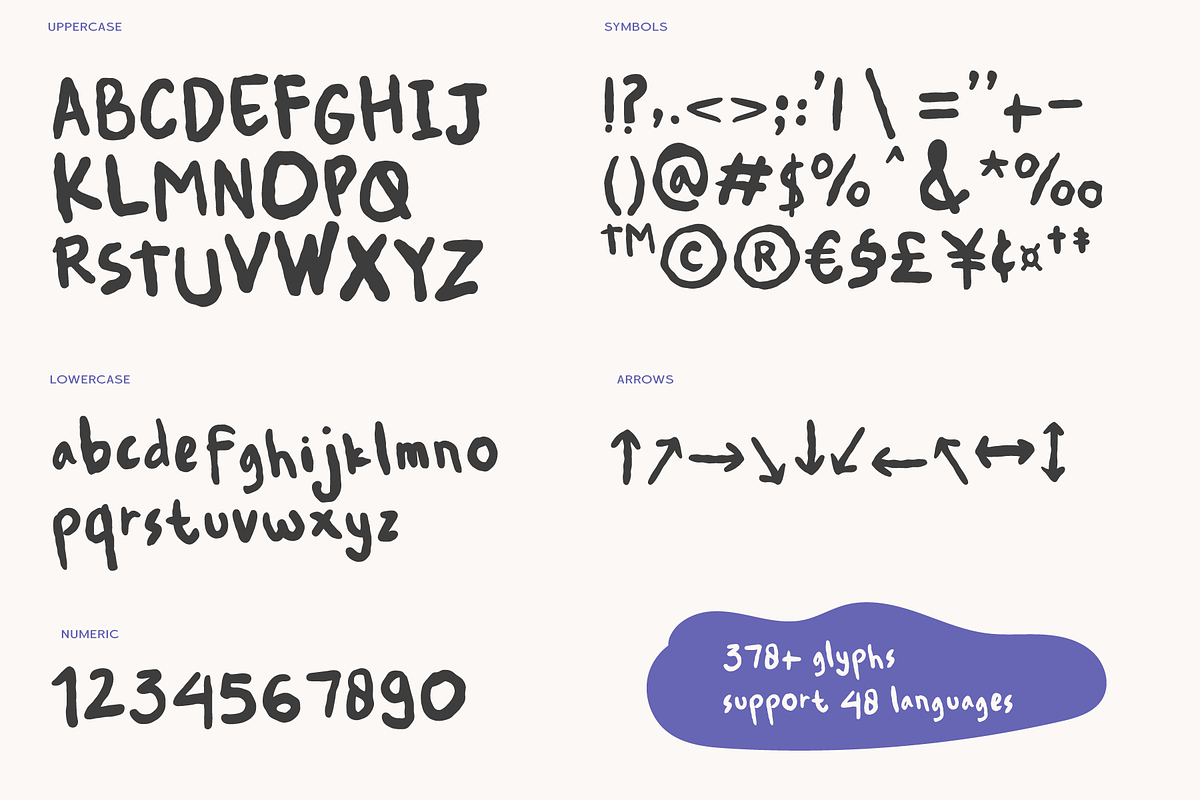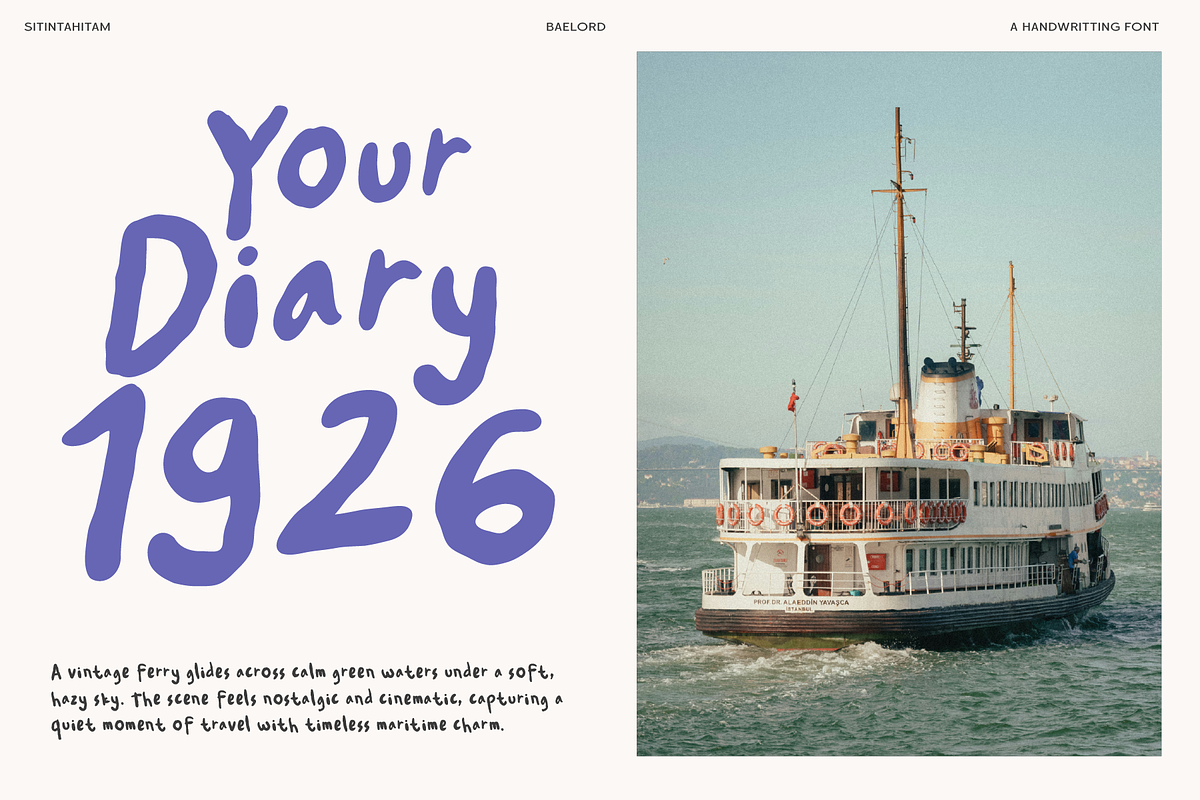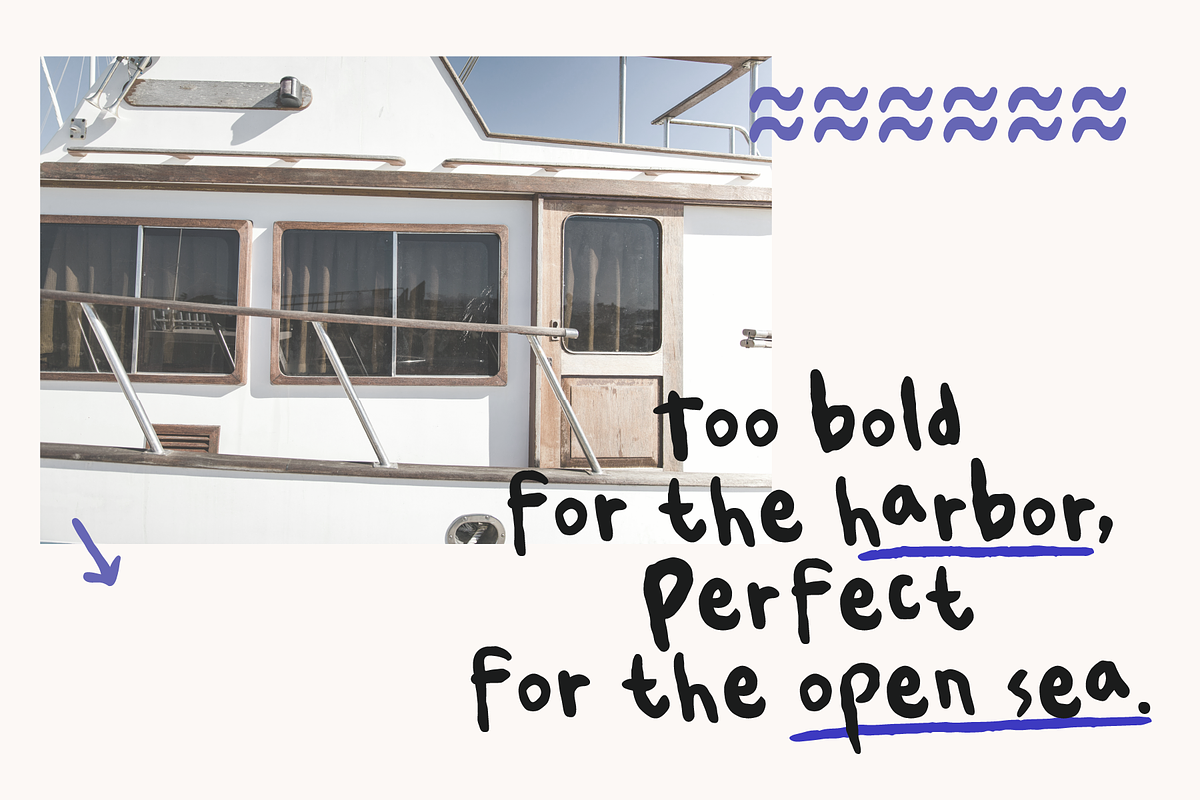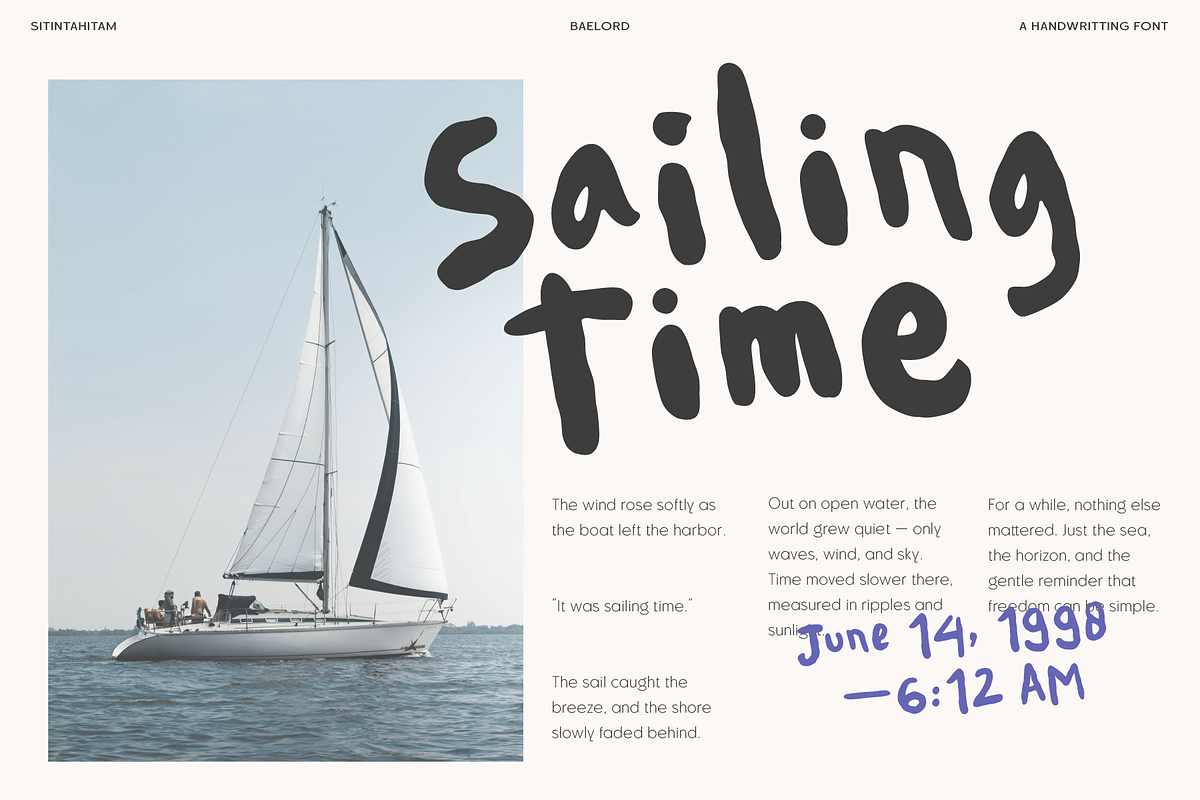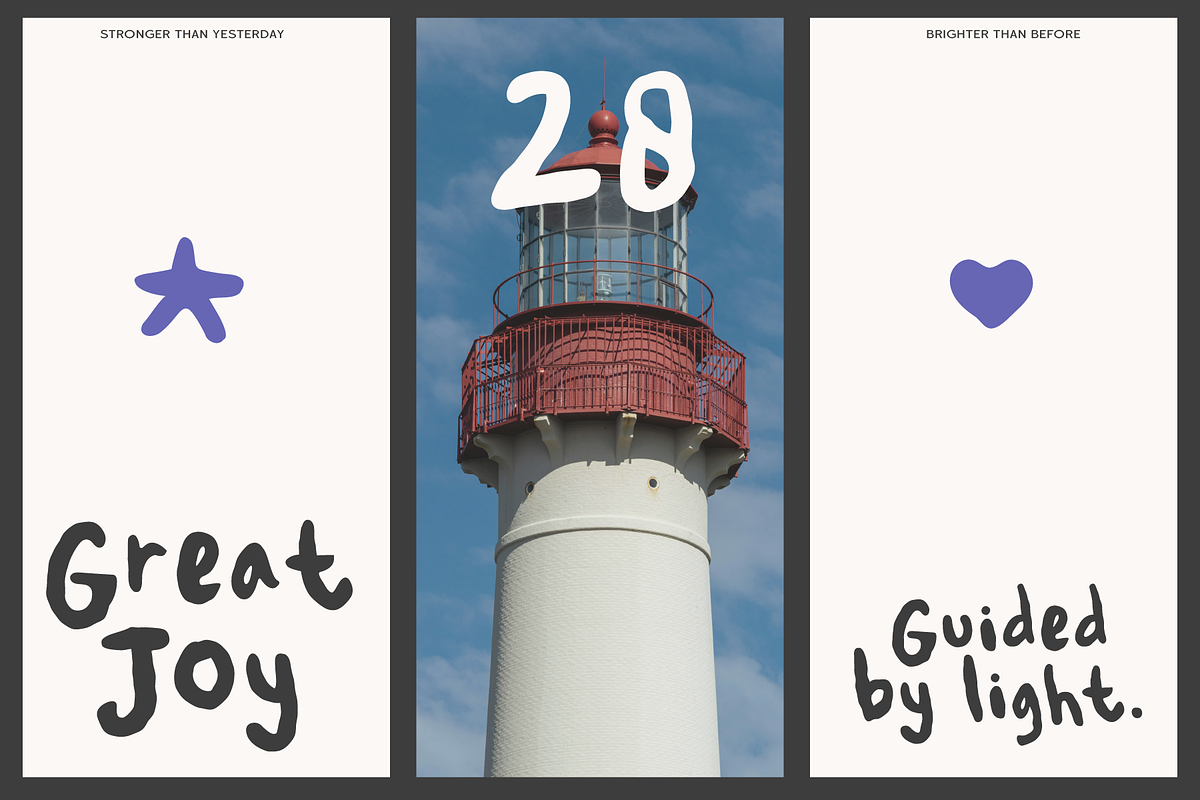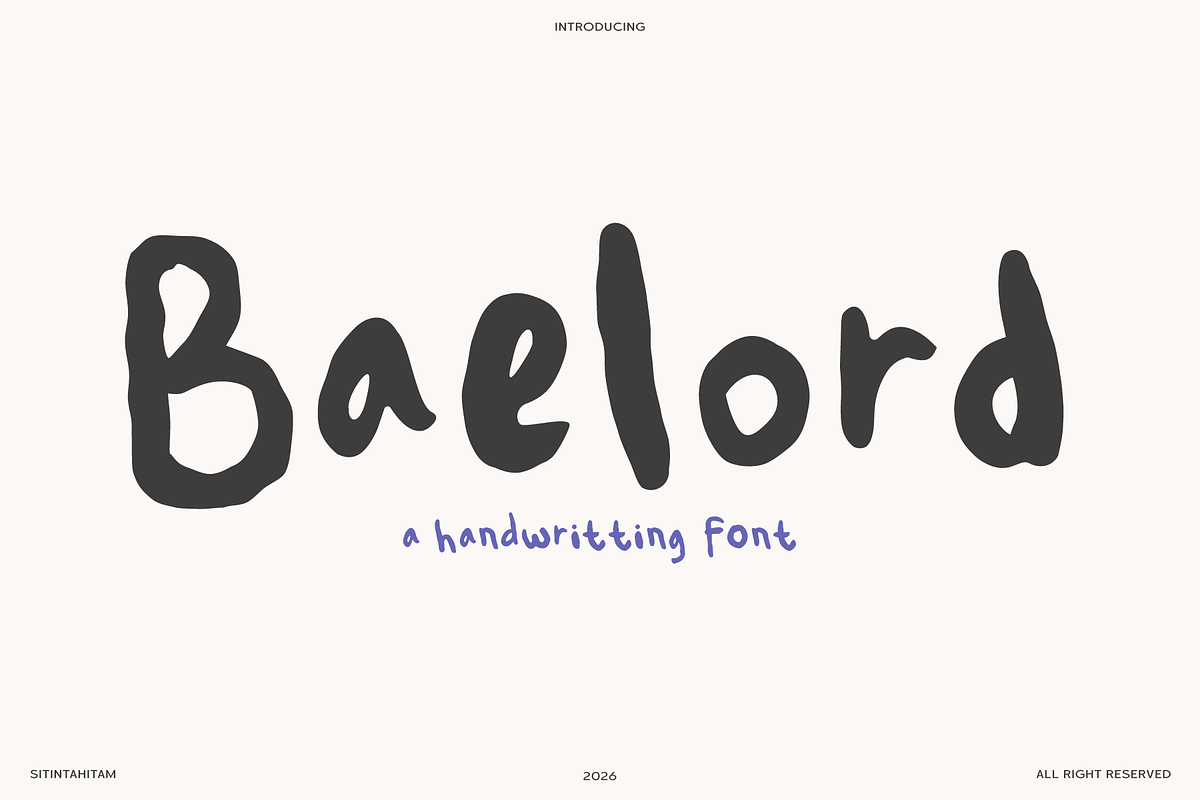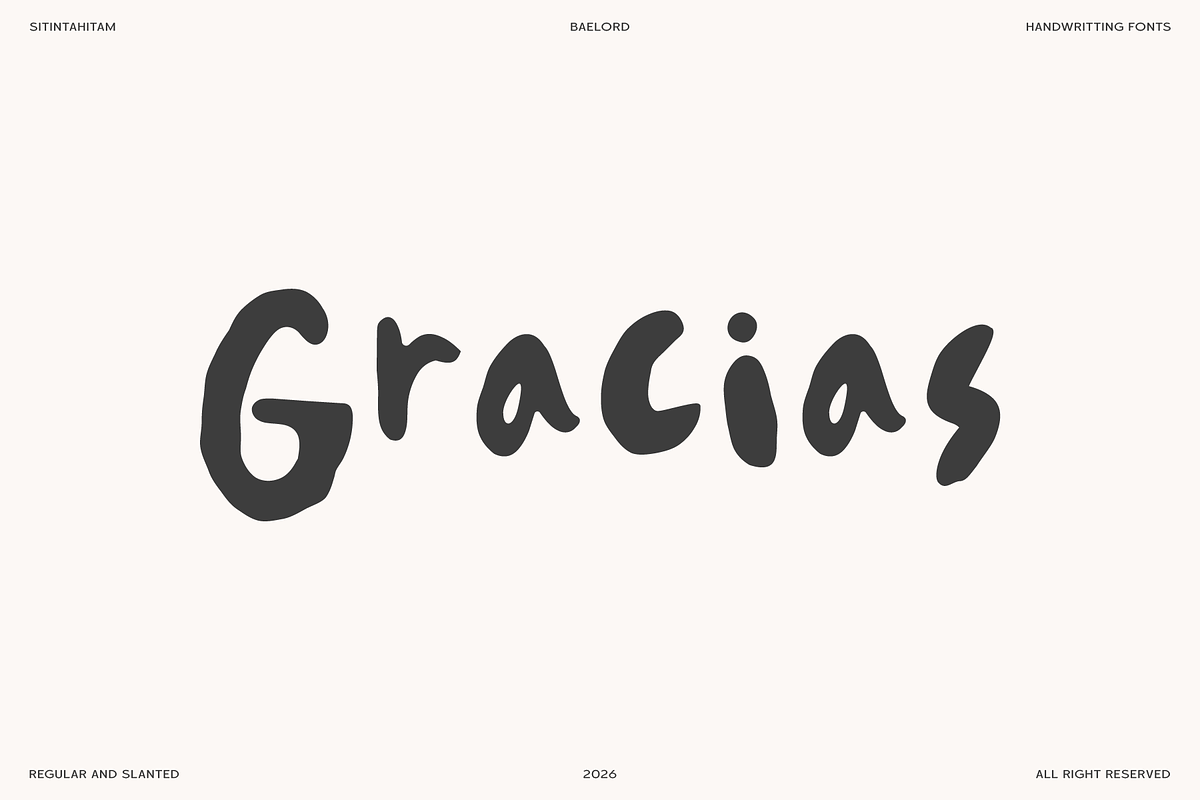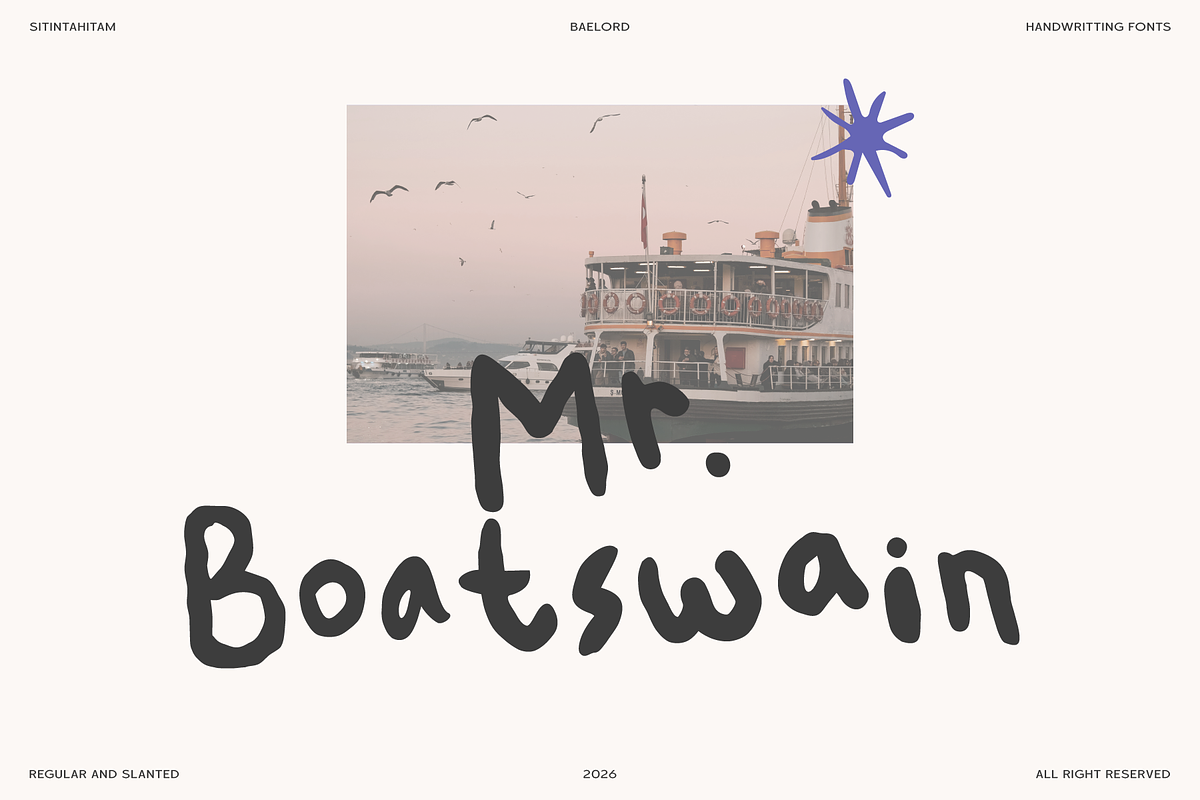
STH Baelord
STH Baelord is a bold and expressive handwriting font designed to capture the raw beauty of natural strokes. With its organic curves, slightly uneven shapes, and playful character flow, Baelord brings a warm and authentic handmade feel to any design.
Inspired by casual brush lettering, this font delivers personality and charm while remaining highly legible. It works beautifully for branding, packaging, social media graphics, posters, book covers, and creative editorial layouts.